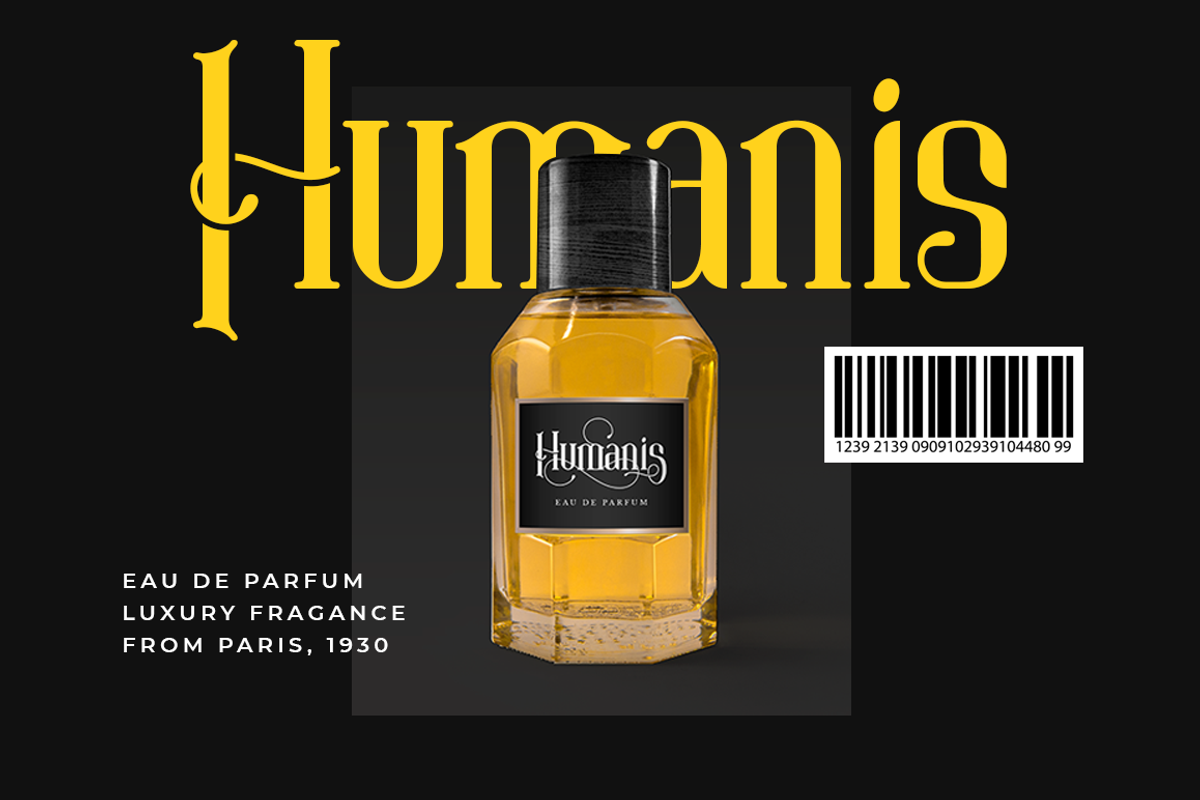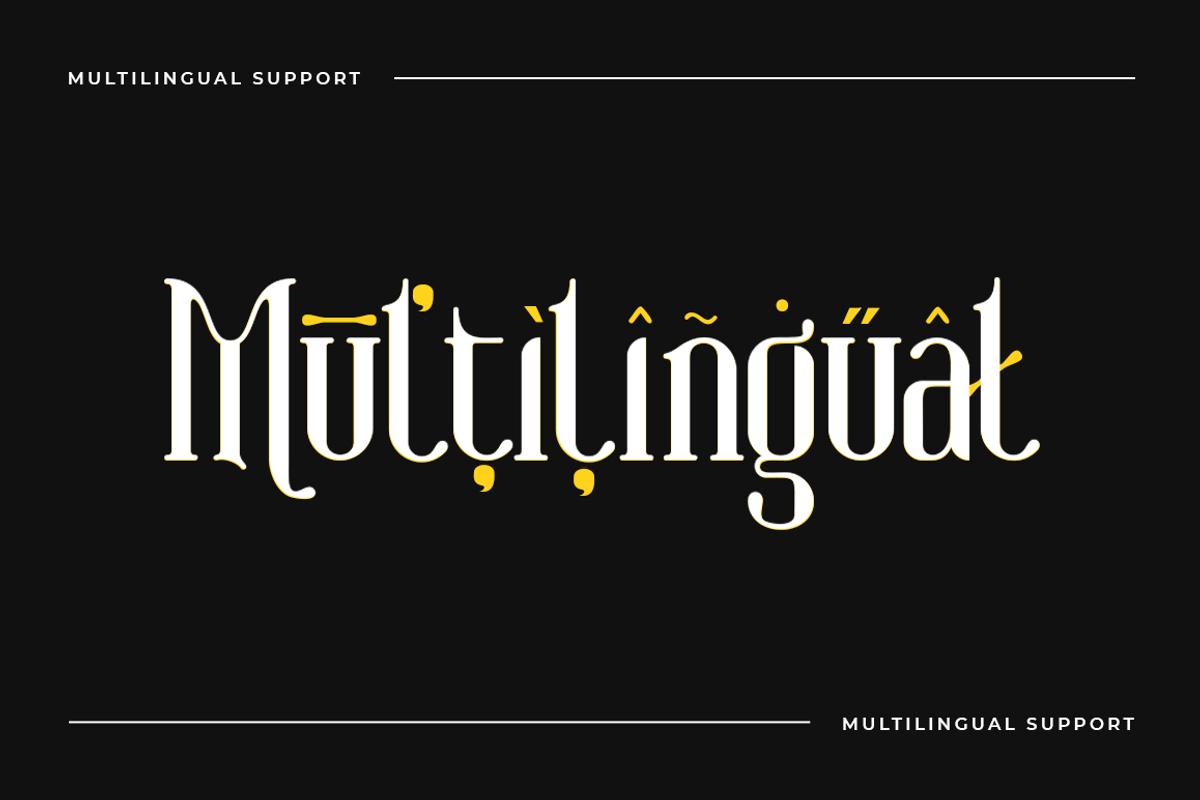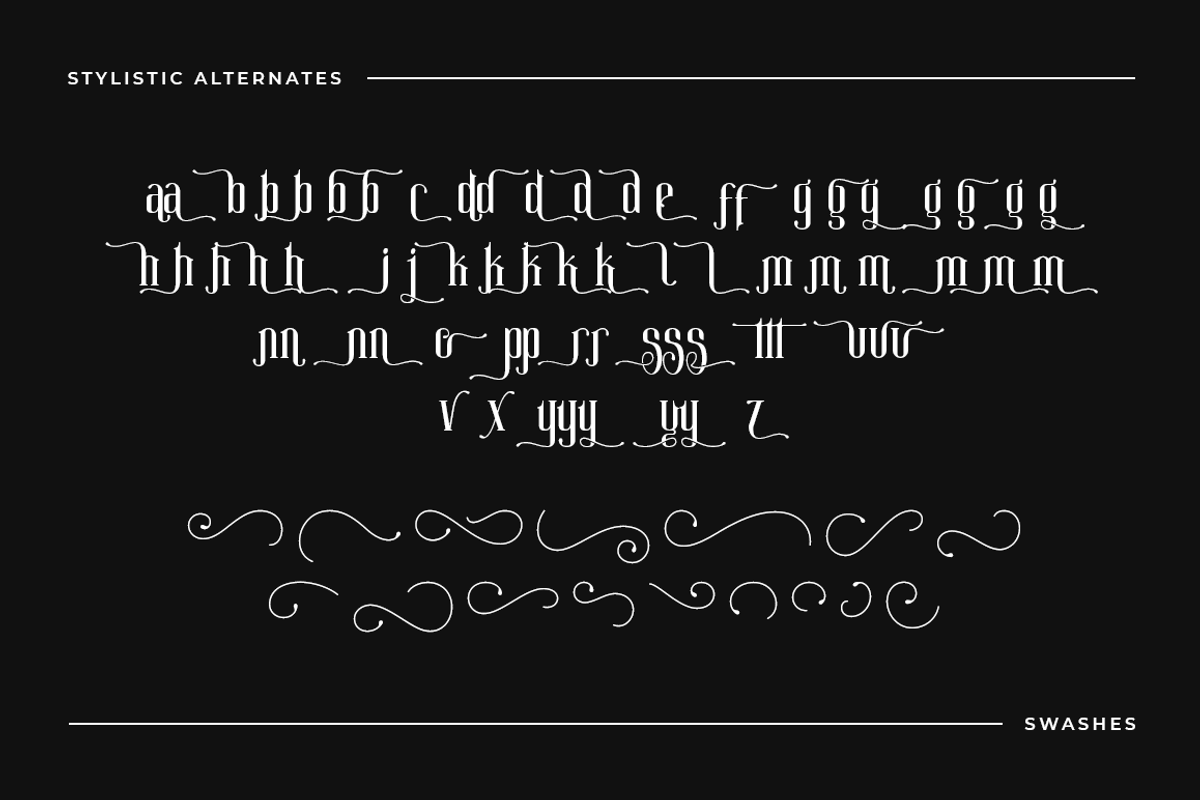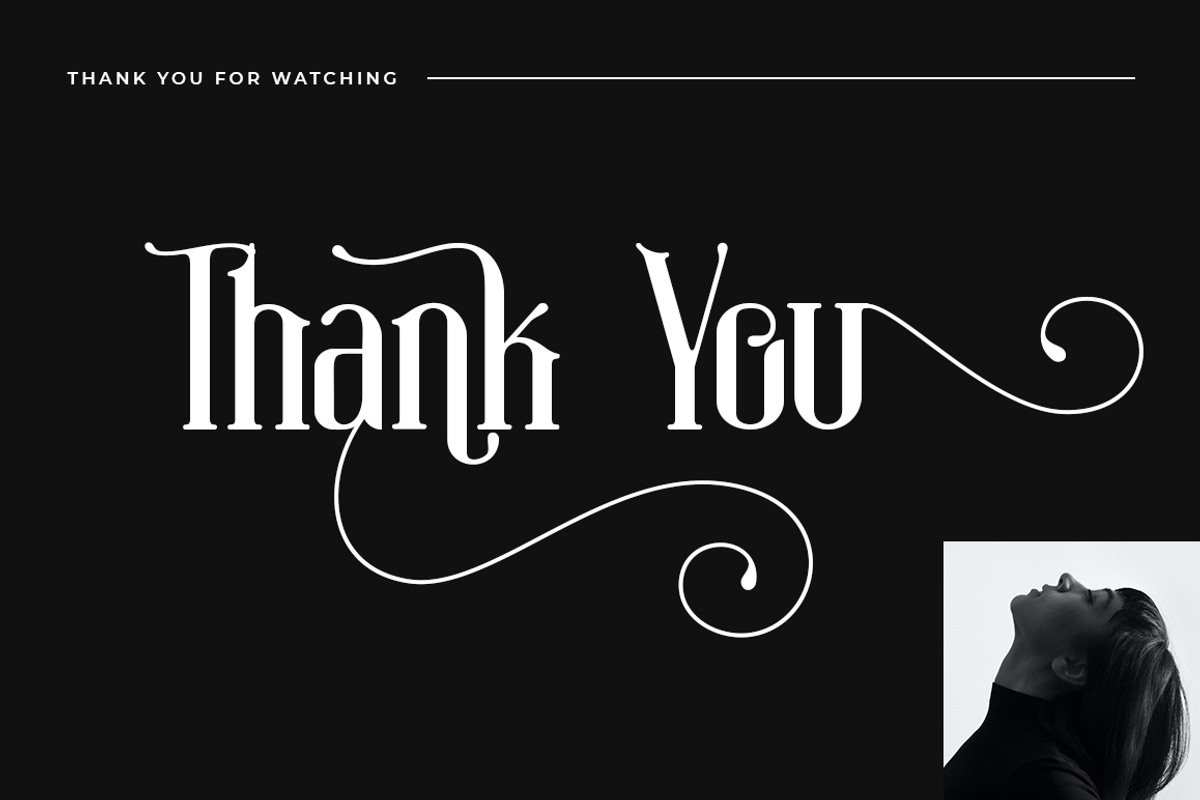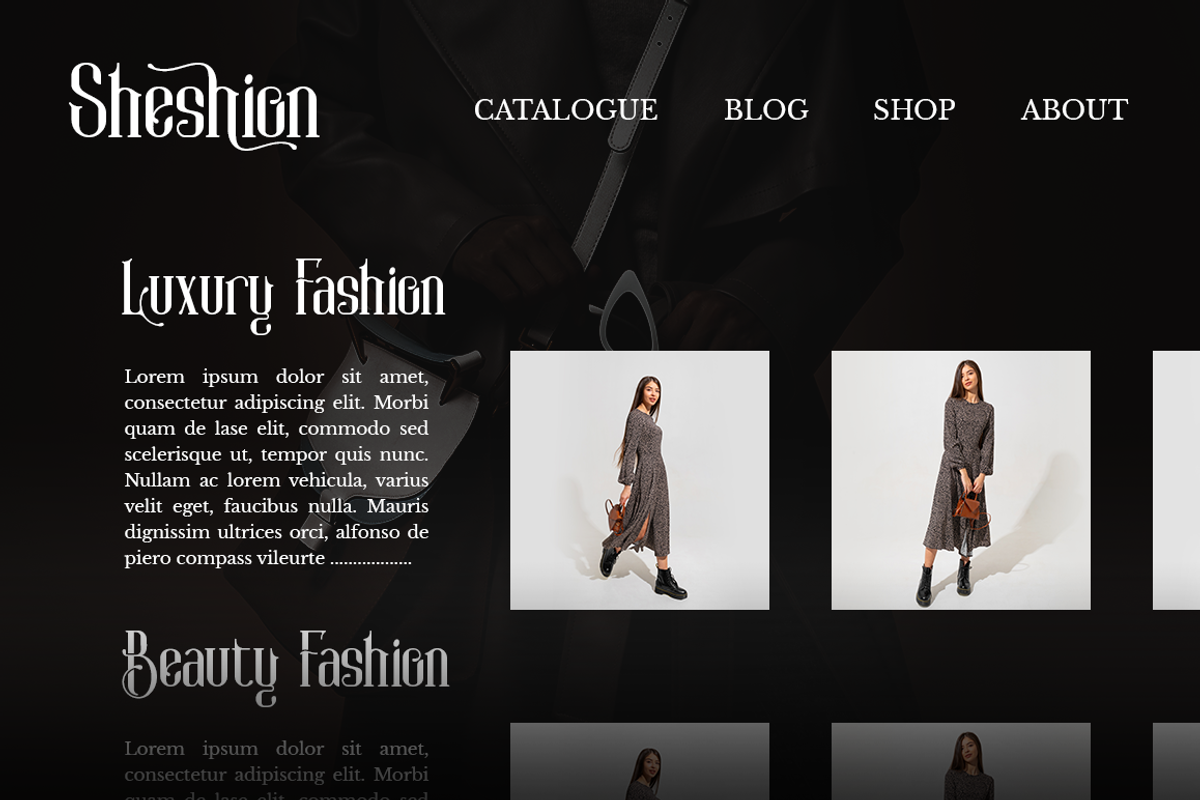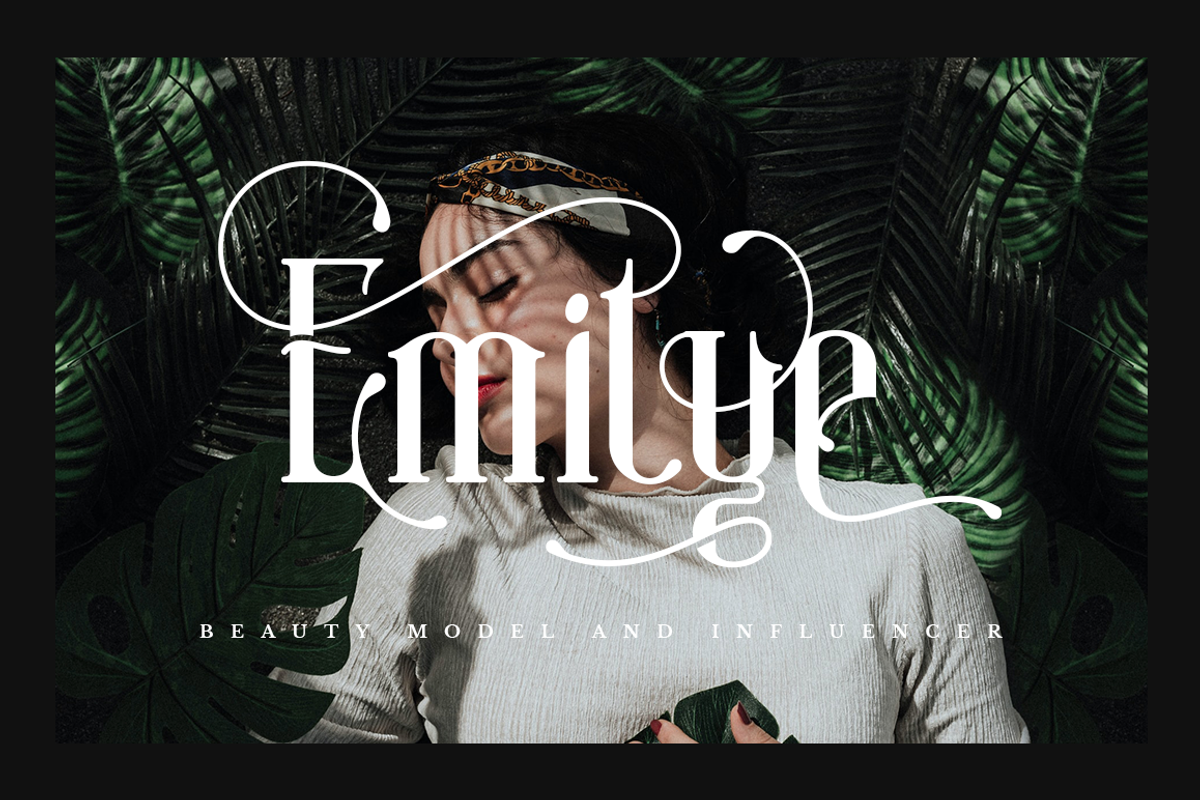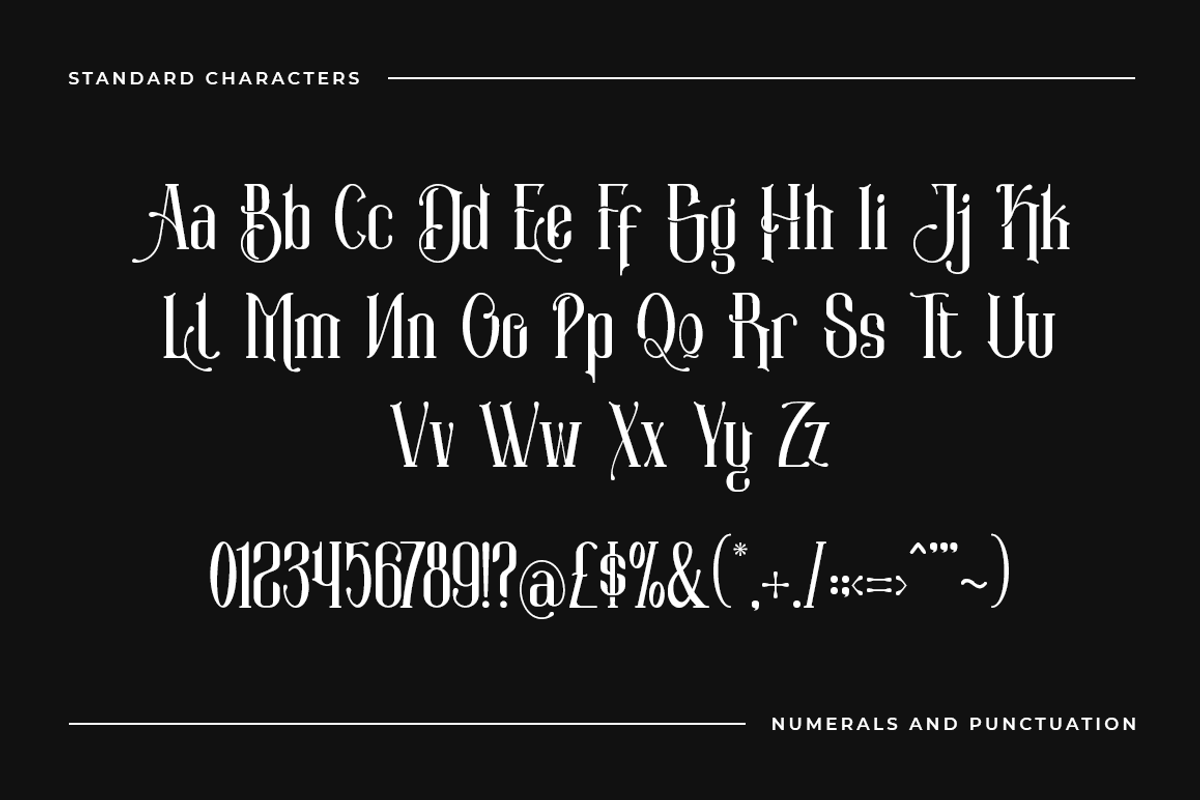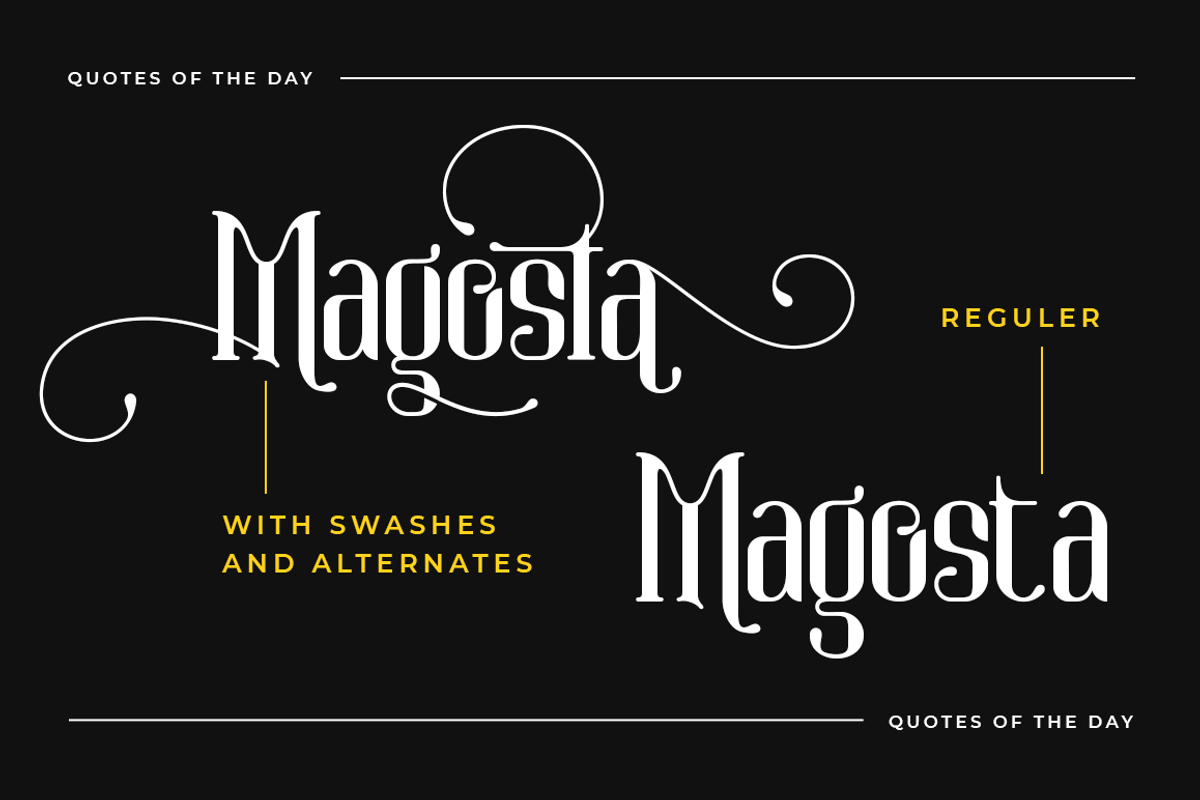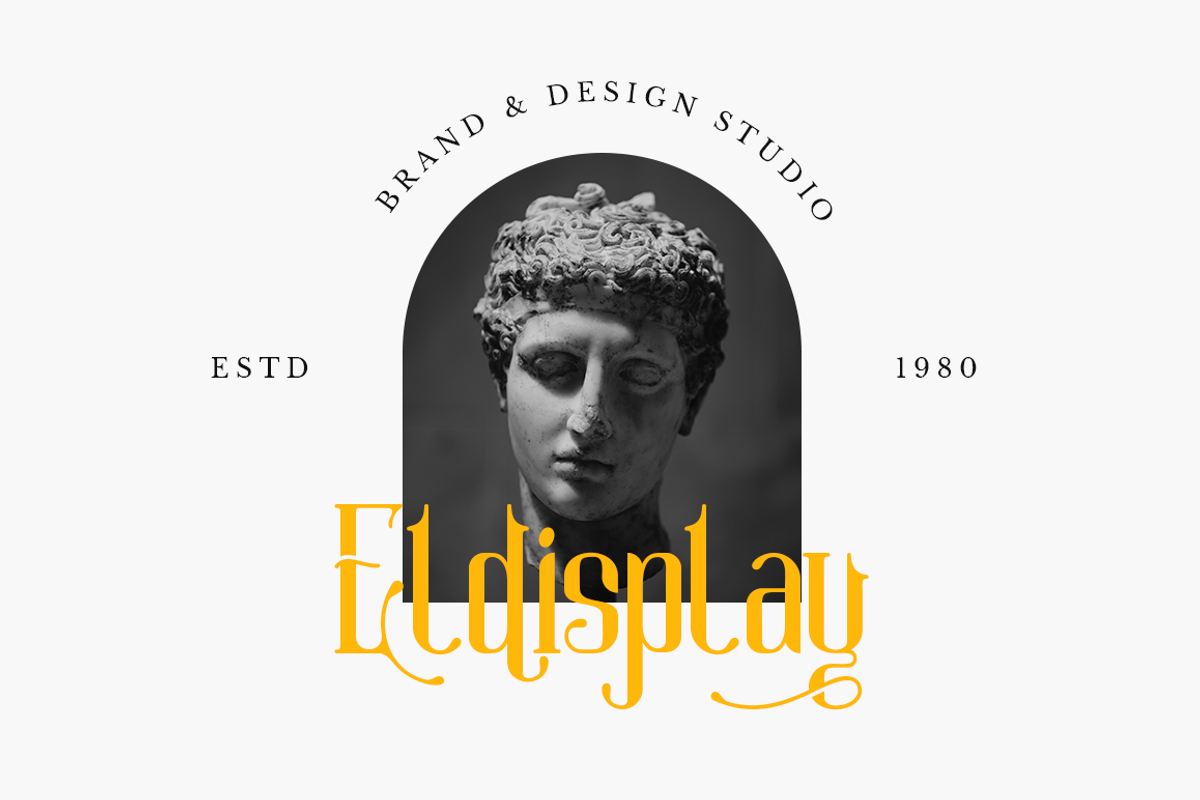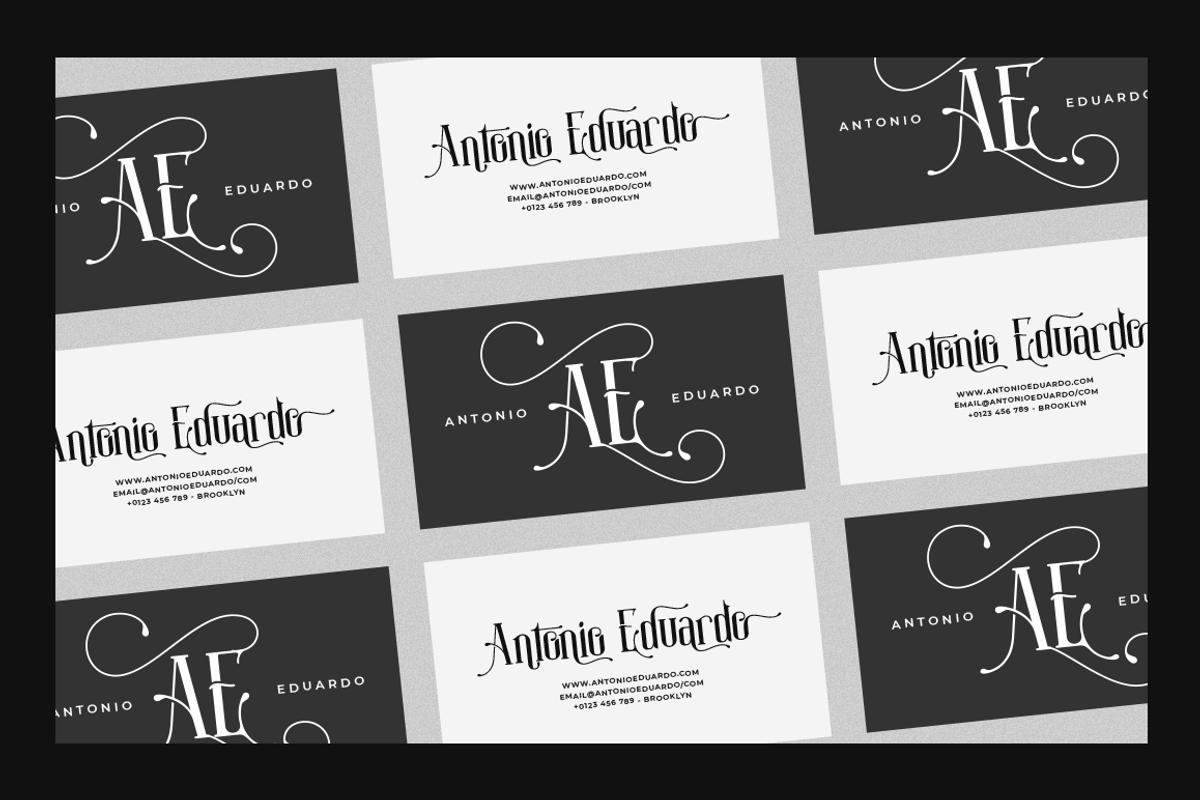
Deska Magosta - Display Font
Deska Magosta simplifies elegance into one truly outstanding serif font. It maintains its classy calligraphic influences while feeling contemporary and fresh. This versatility will appeal to a wide range of crafty ideas, from letterheads and titles, to stationery.